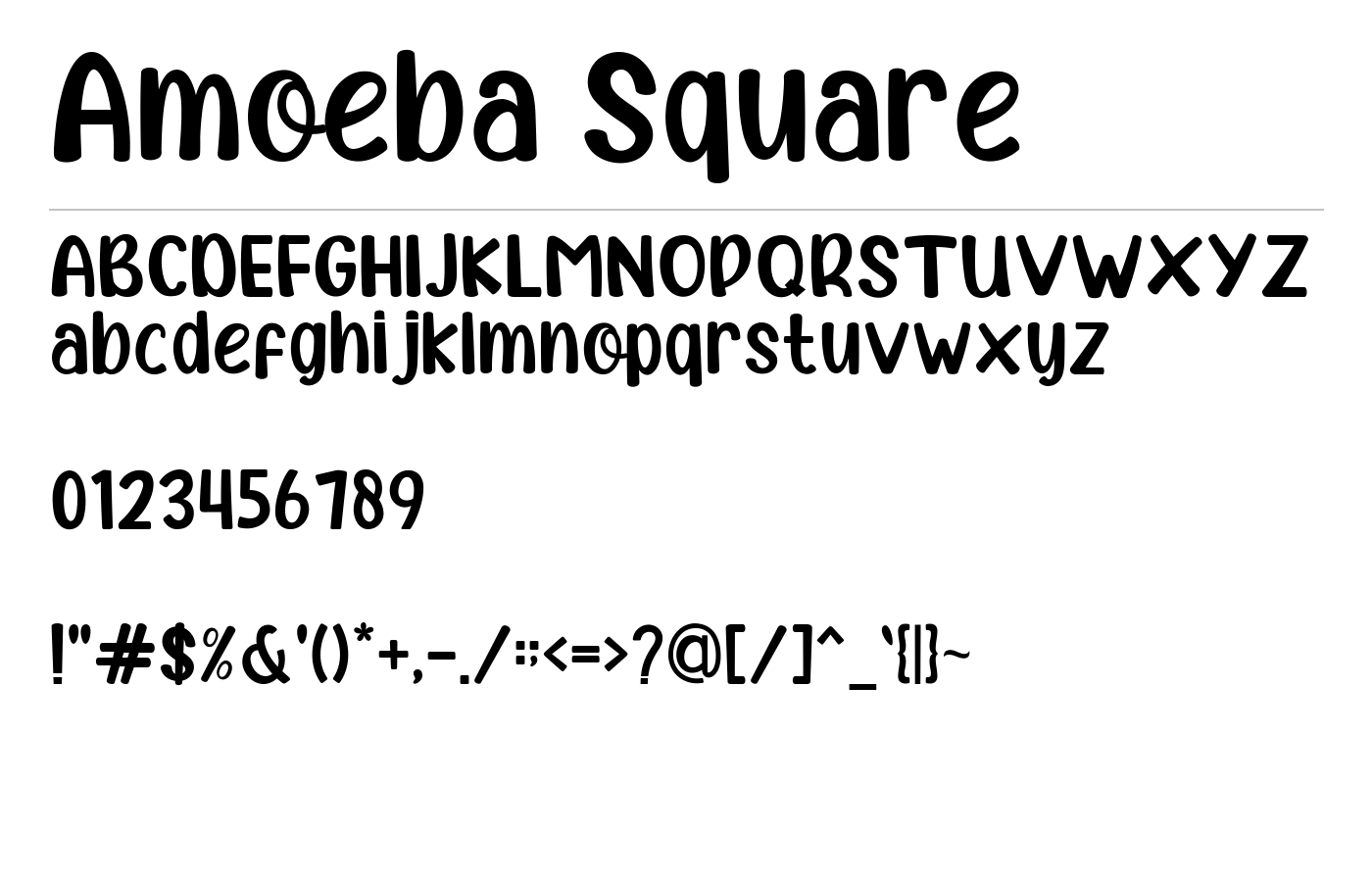
Amoeba Square is a playful and friendly sans serif font with a hand-drawn, slightly quirky style that feels warm and approachable. Its rounded shapes, moderate weight, and tall x-height make it ideal for casual, fun designs, especially where personality and charm are needed. This font works well for children’s books, informal branding, and creative projects that seek a lighthearted, engaging tone.
Amoeba Square Font
About Amoeba Square Font
| Font family | Amoeba Square Font |
| Designer | Usman Al Baehaqi |